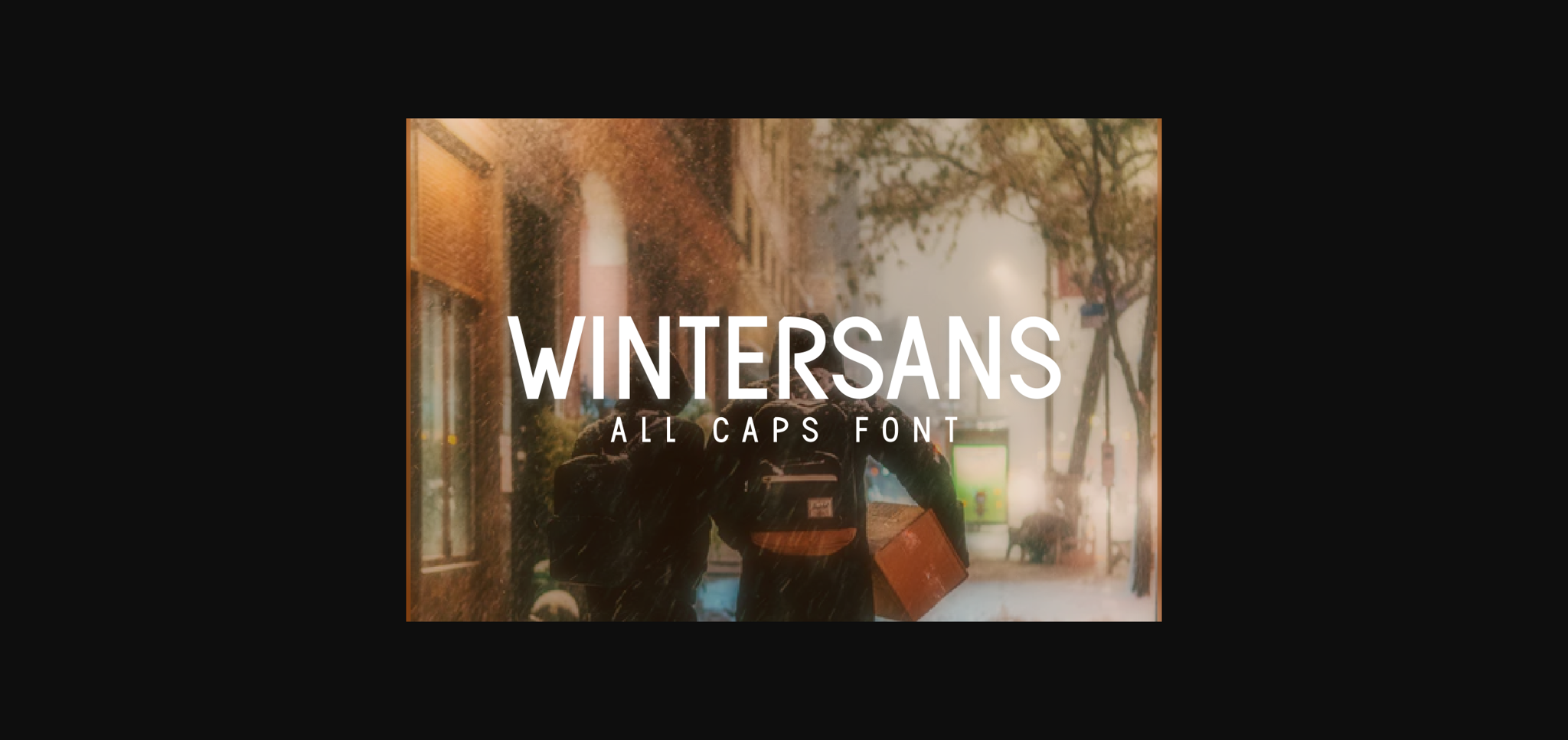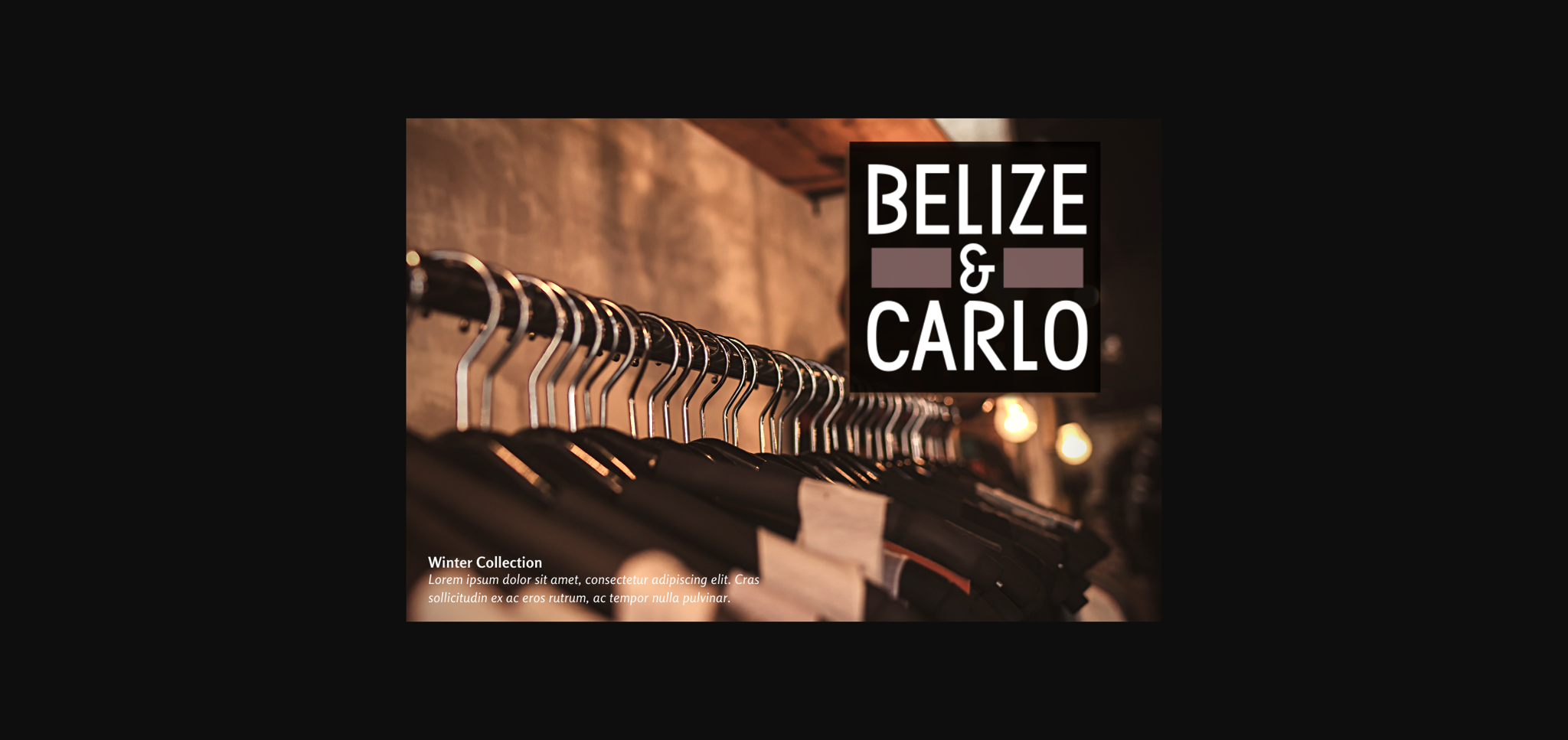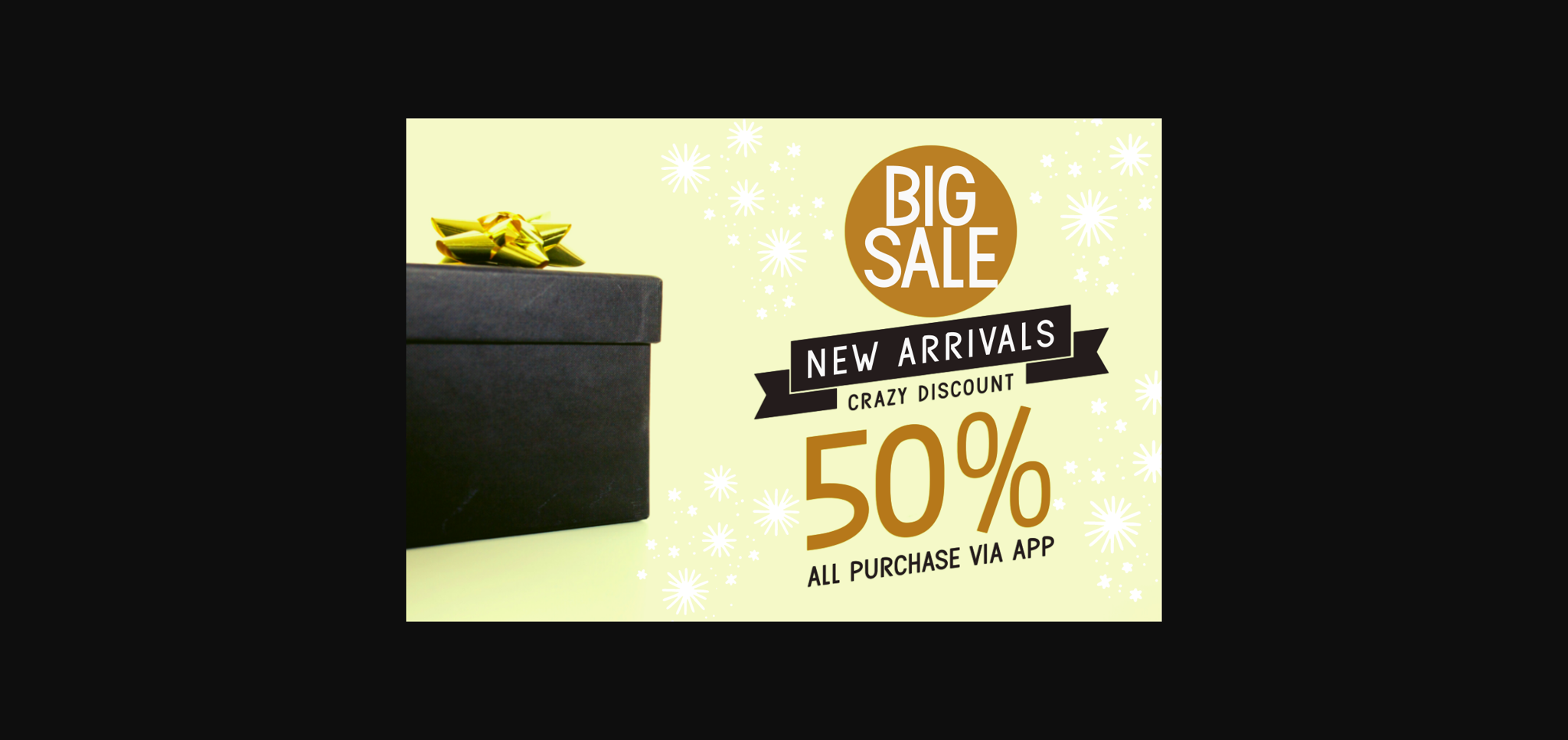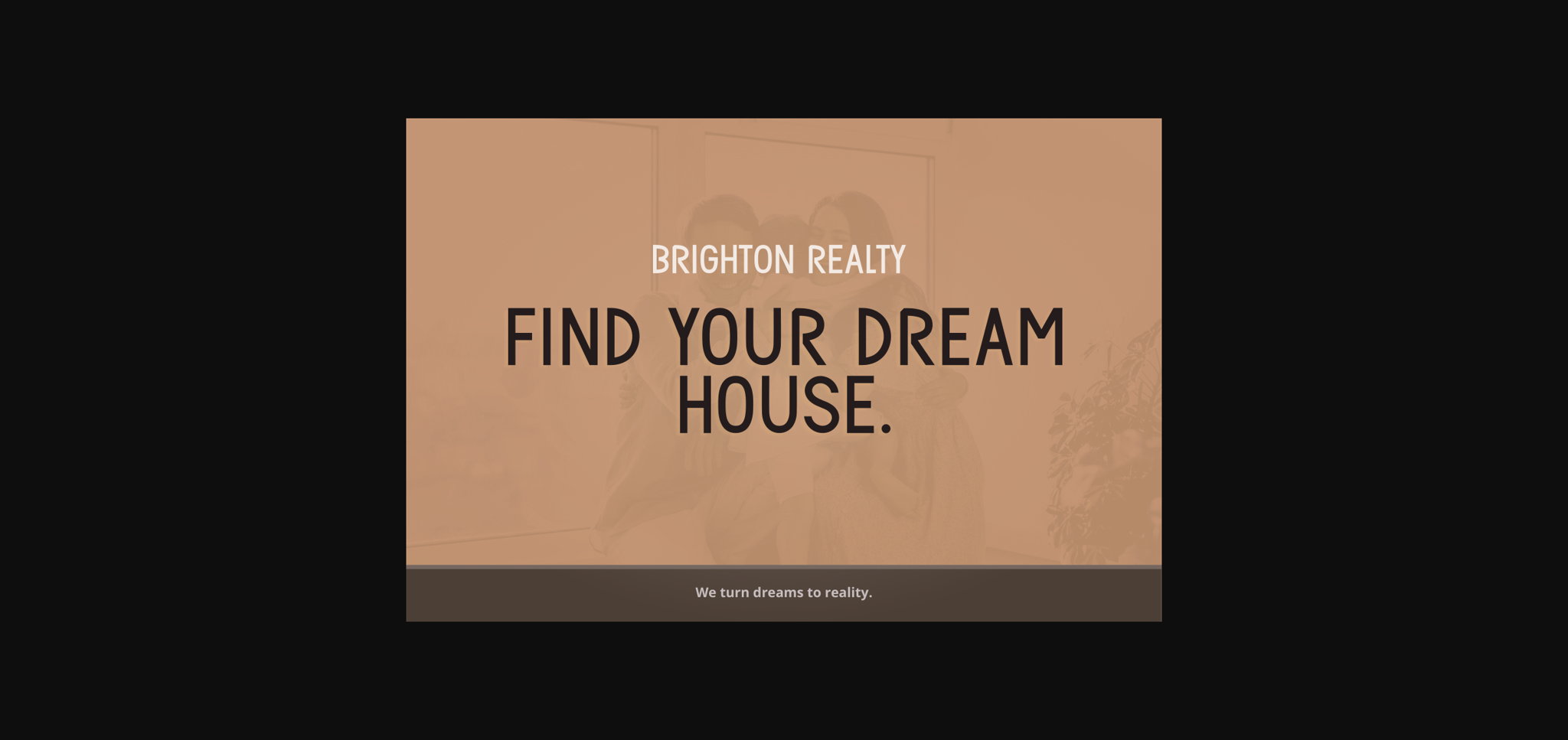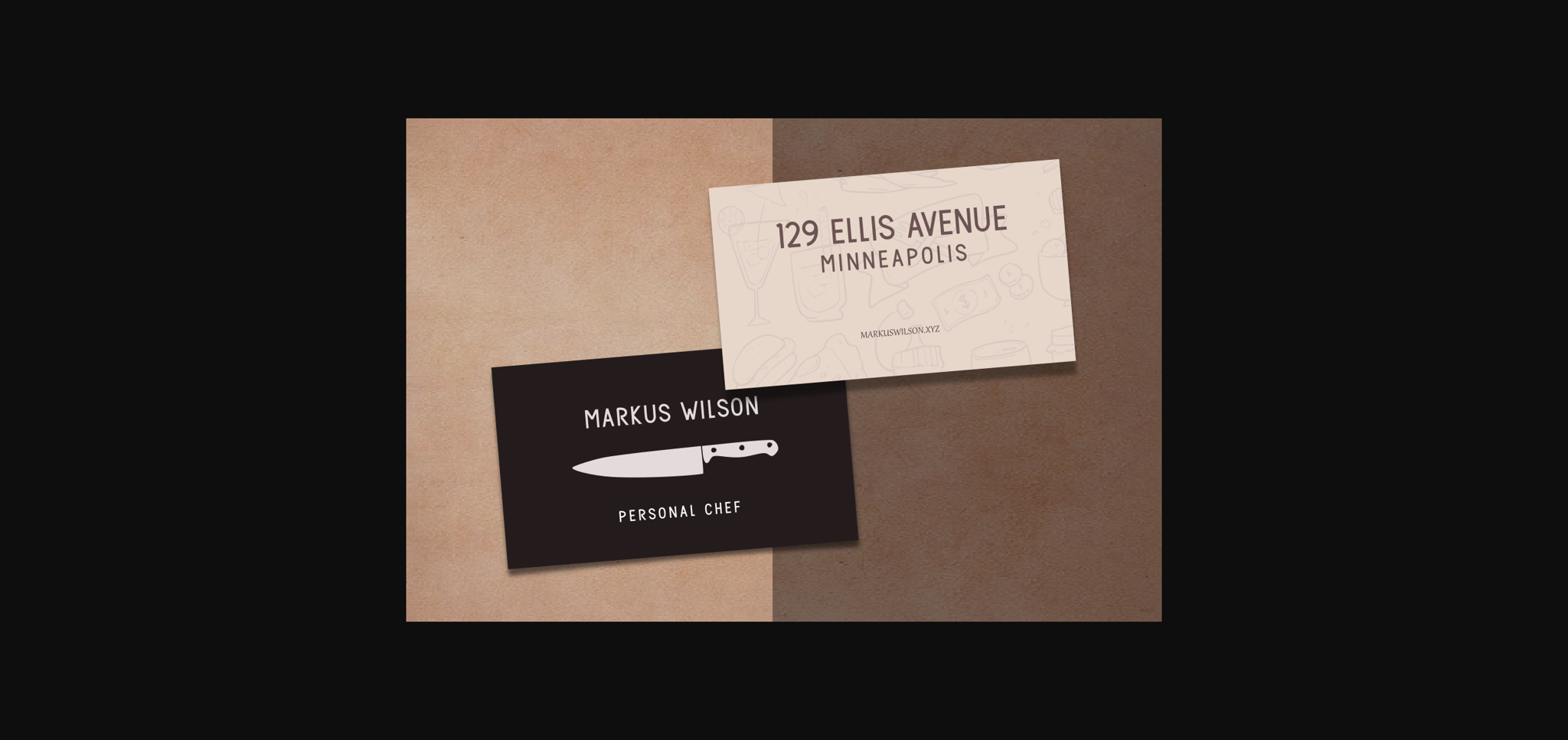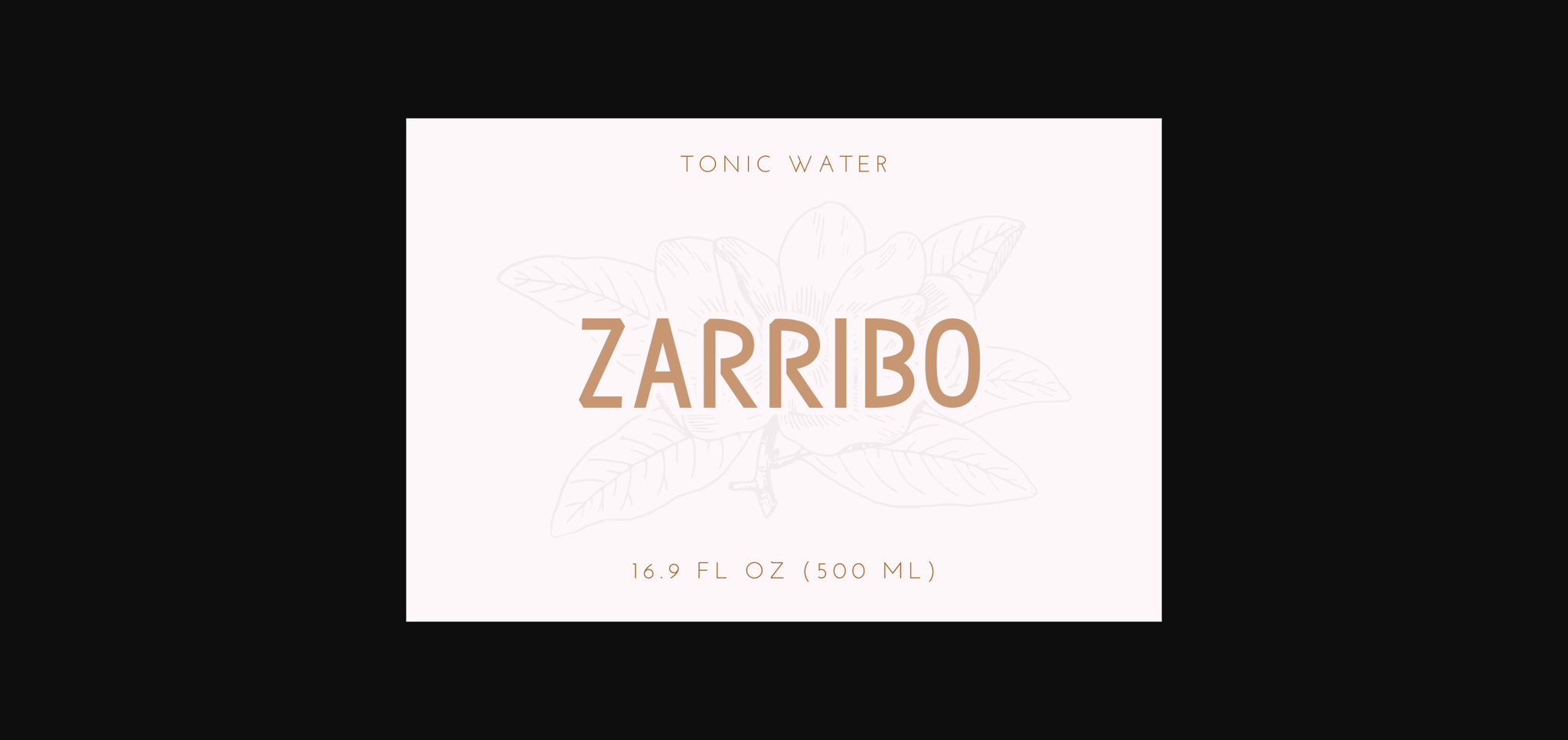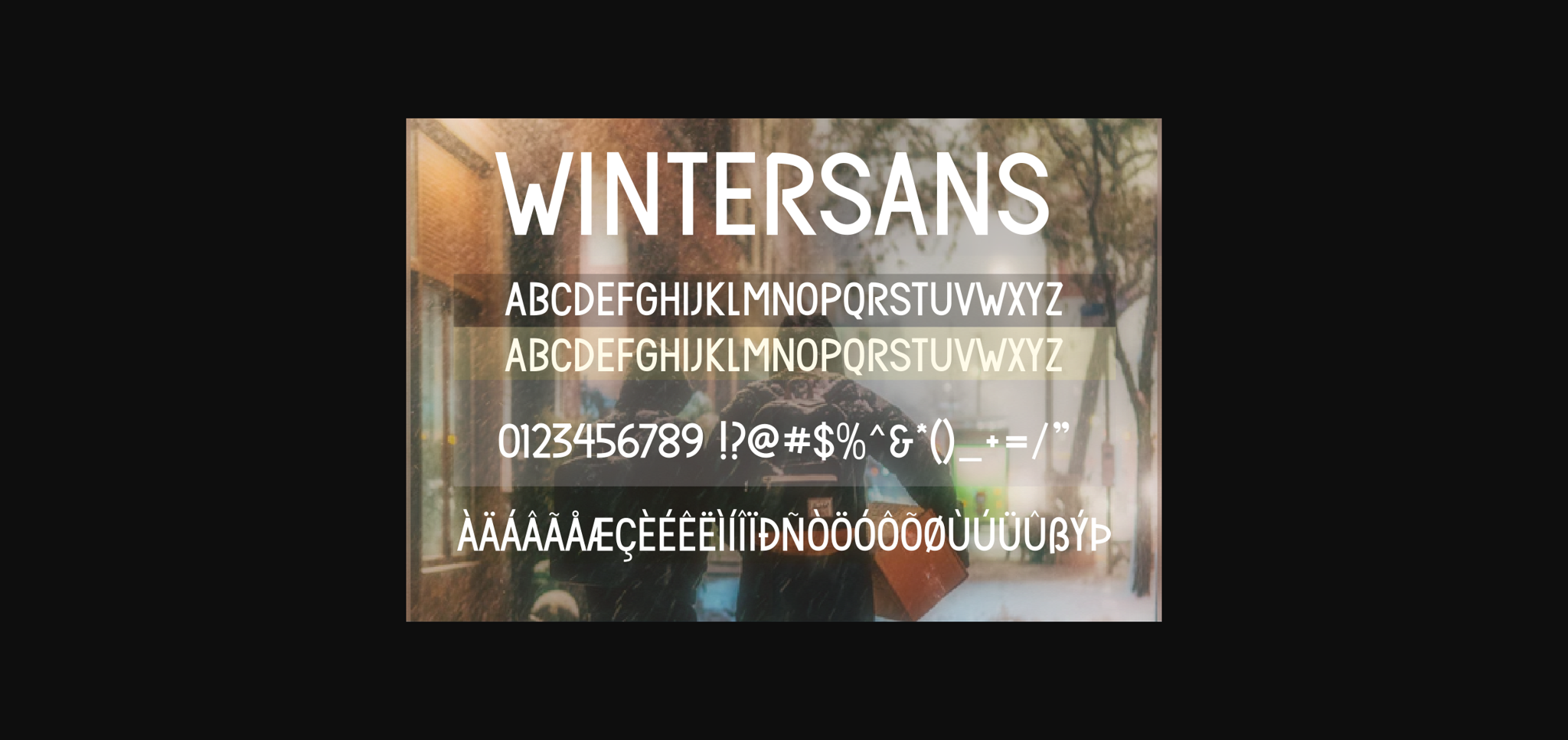
Wintersans Font
About Wintersans Font
Wintersans is a classic sans serif font. This font will look outstanding in any context, whether it’s being used on busy backgrounds or as a standalone headline!